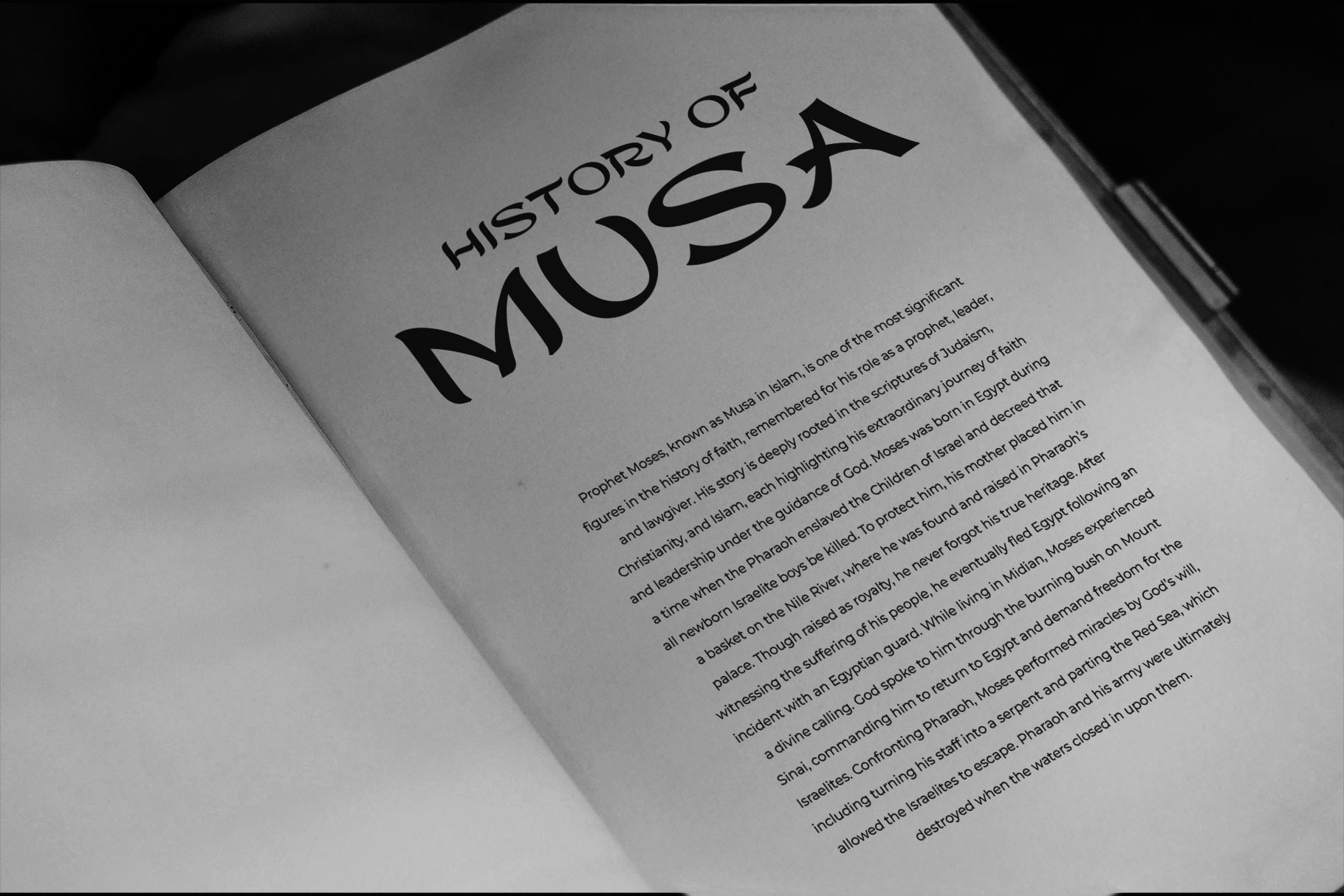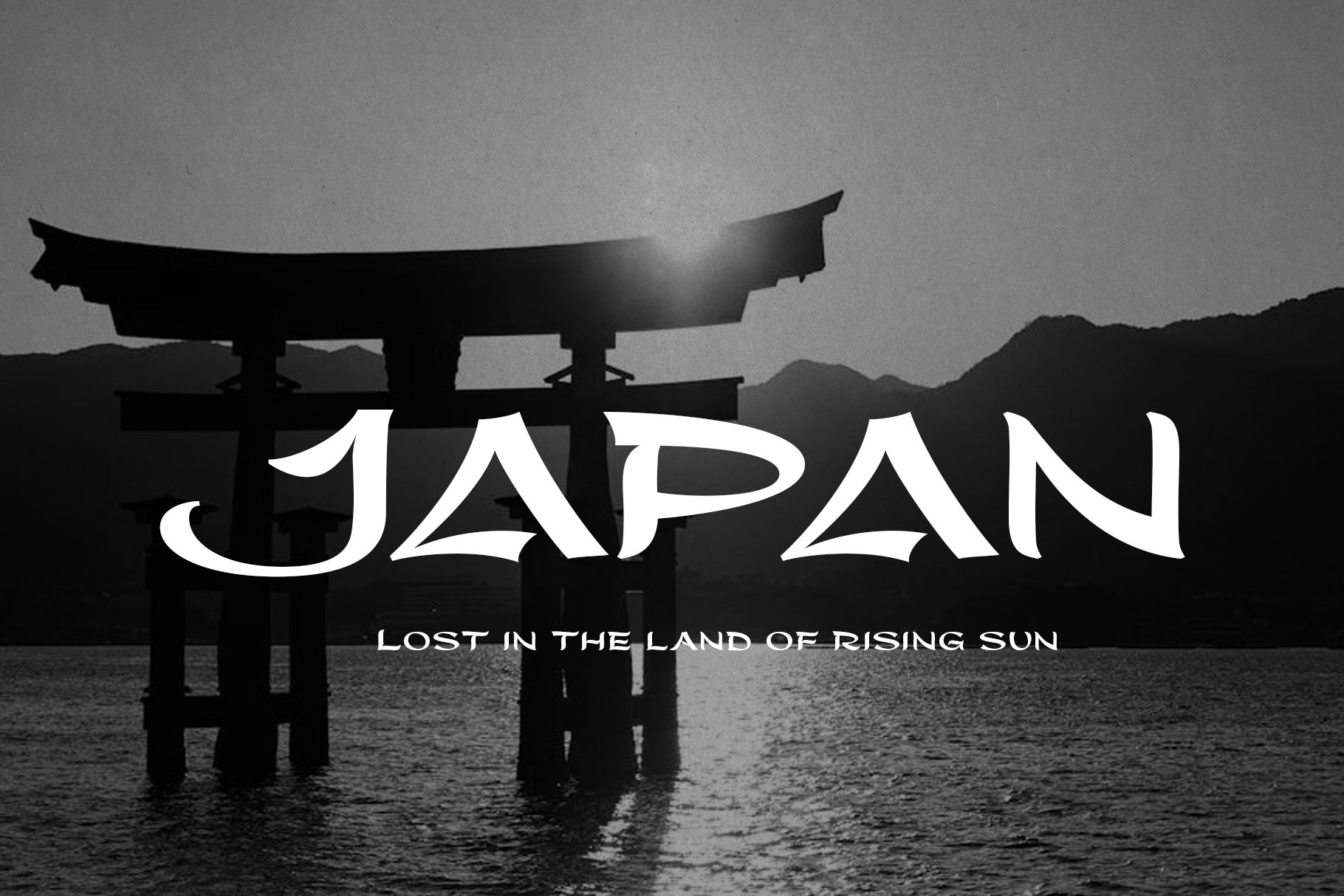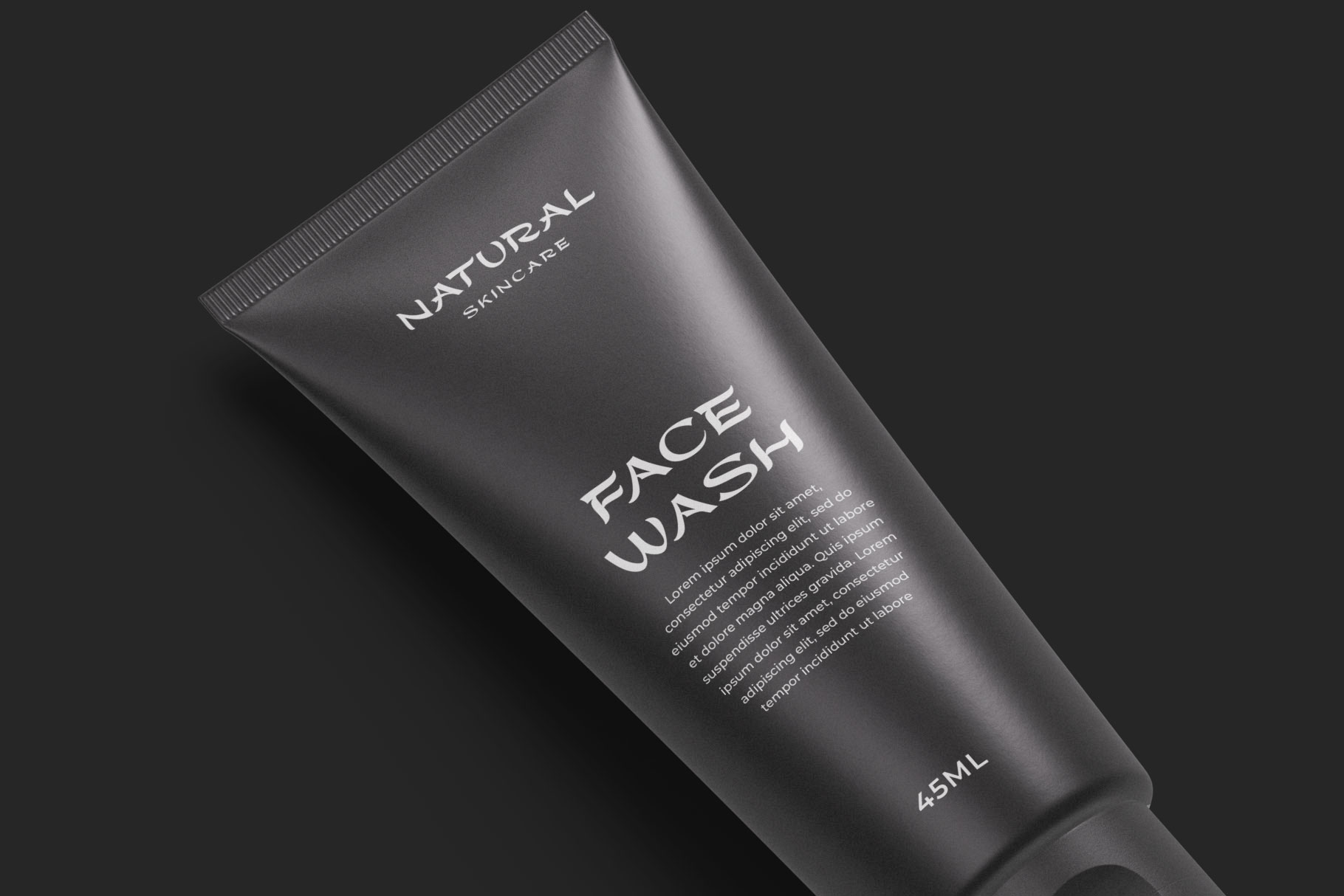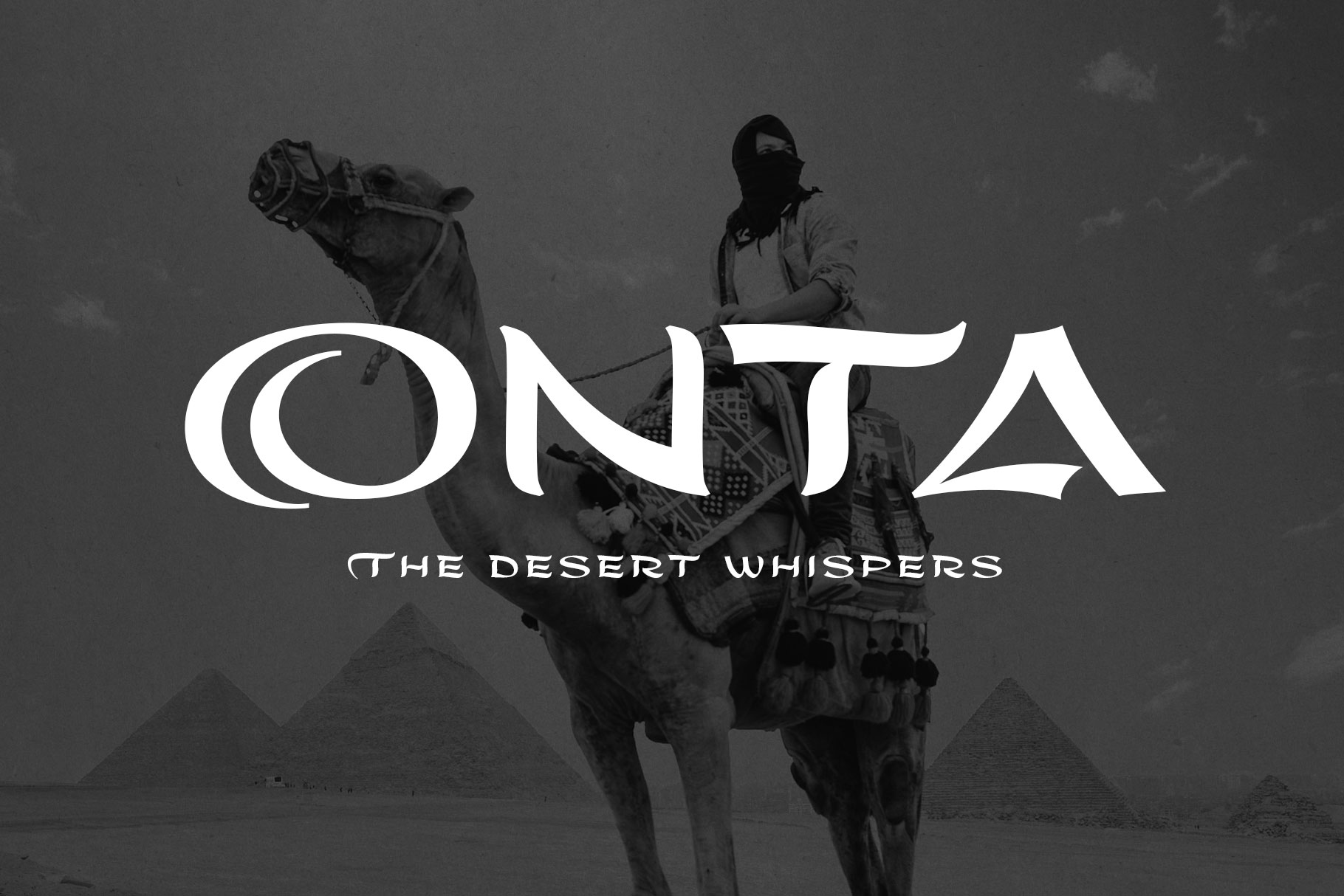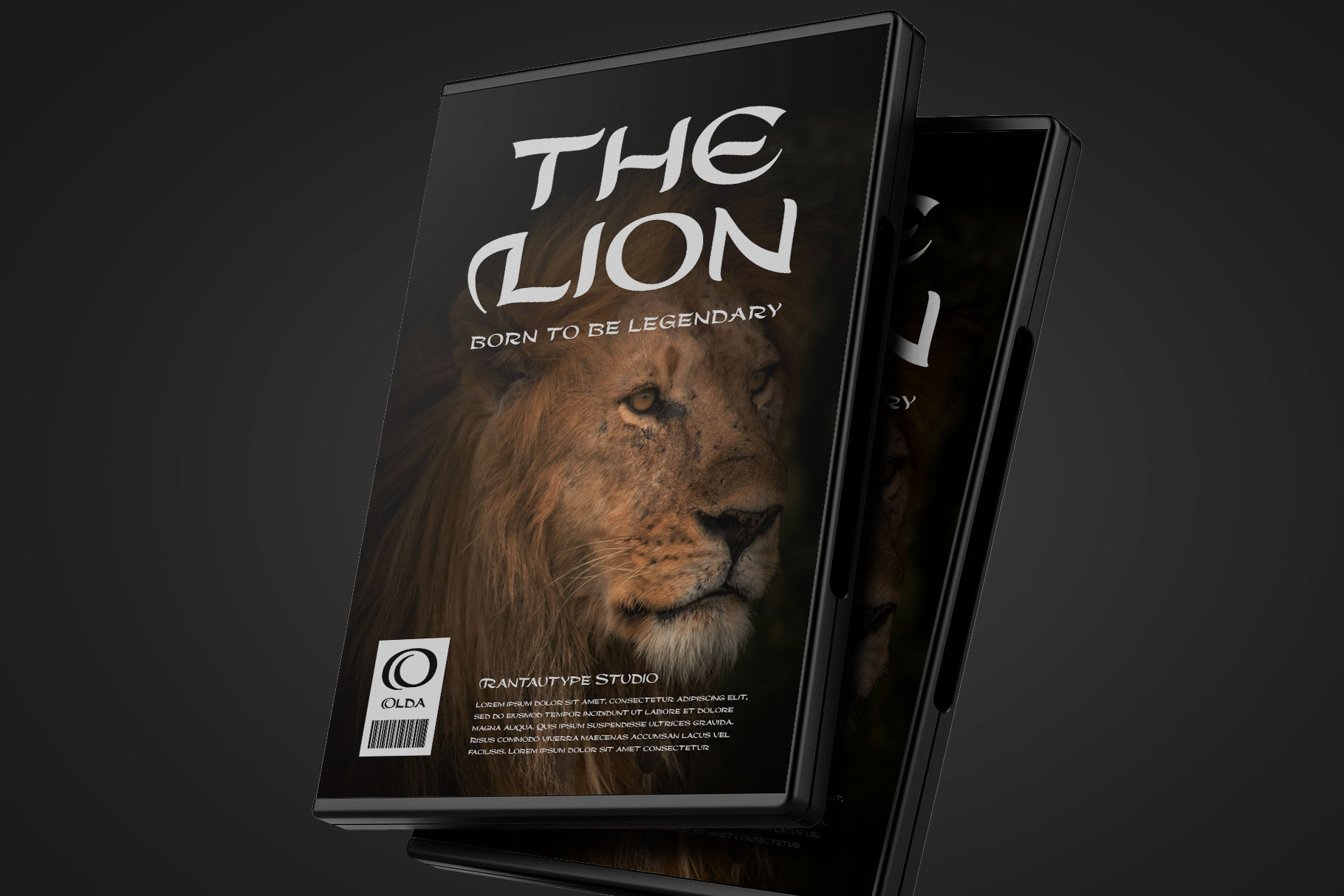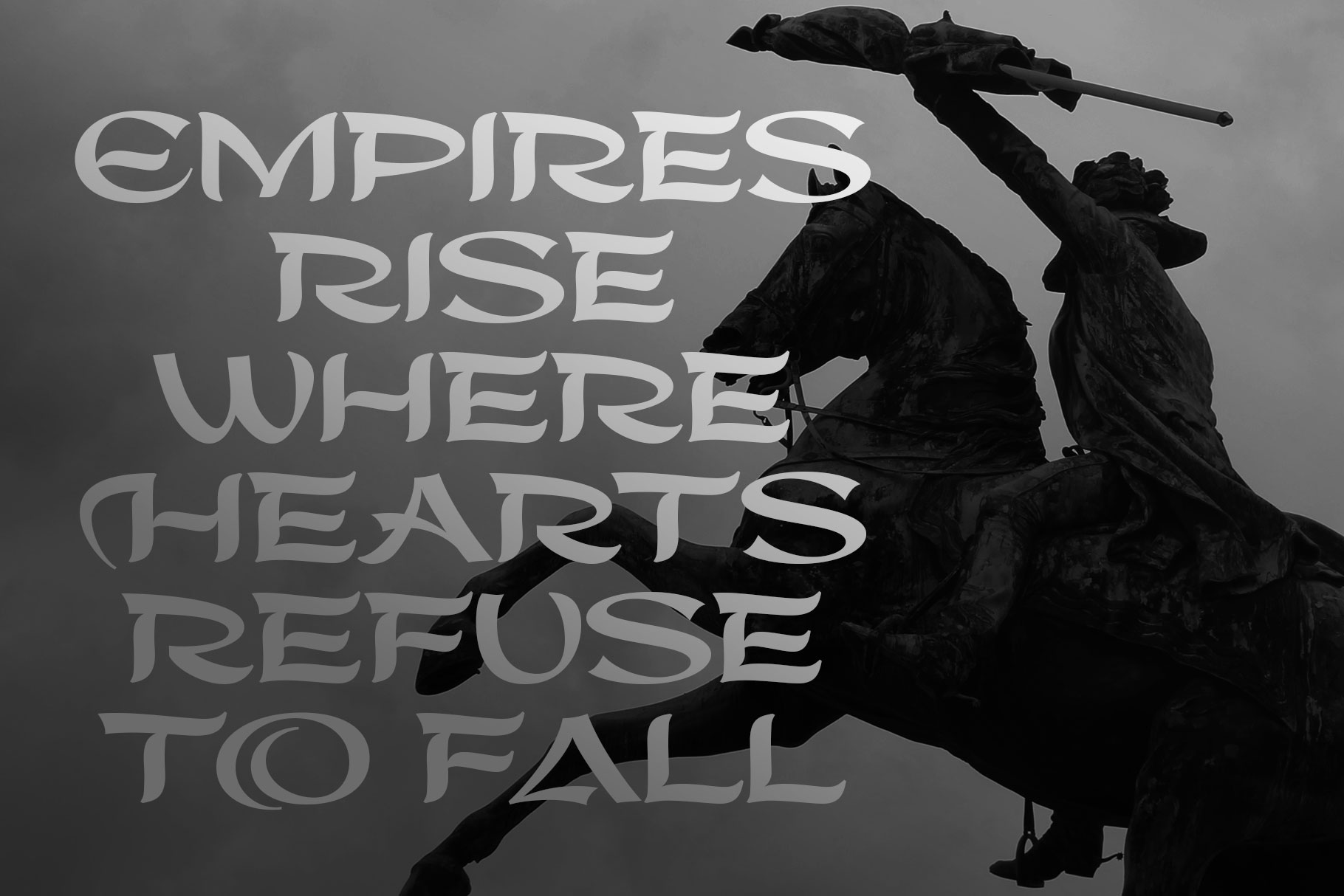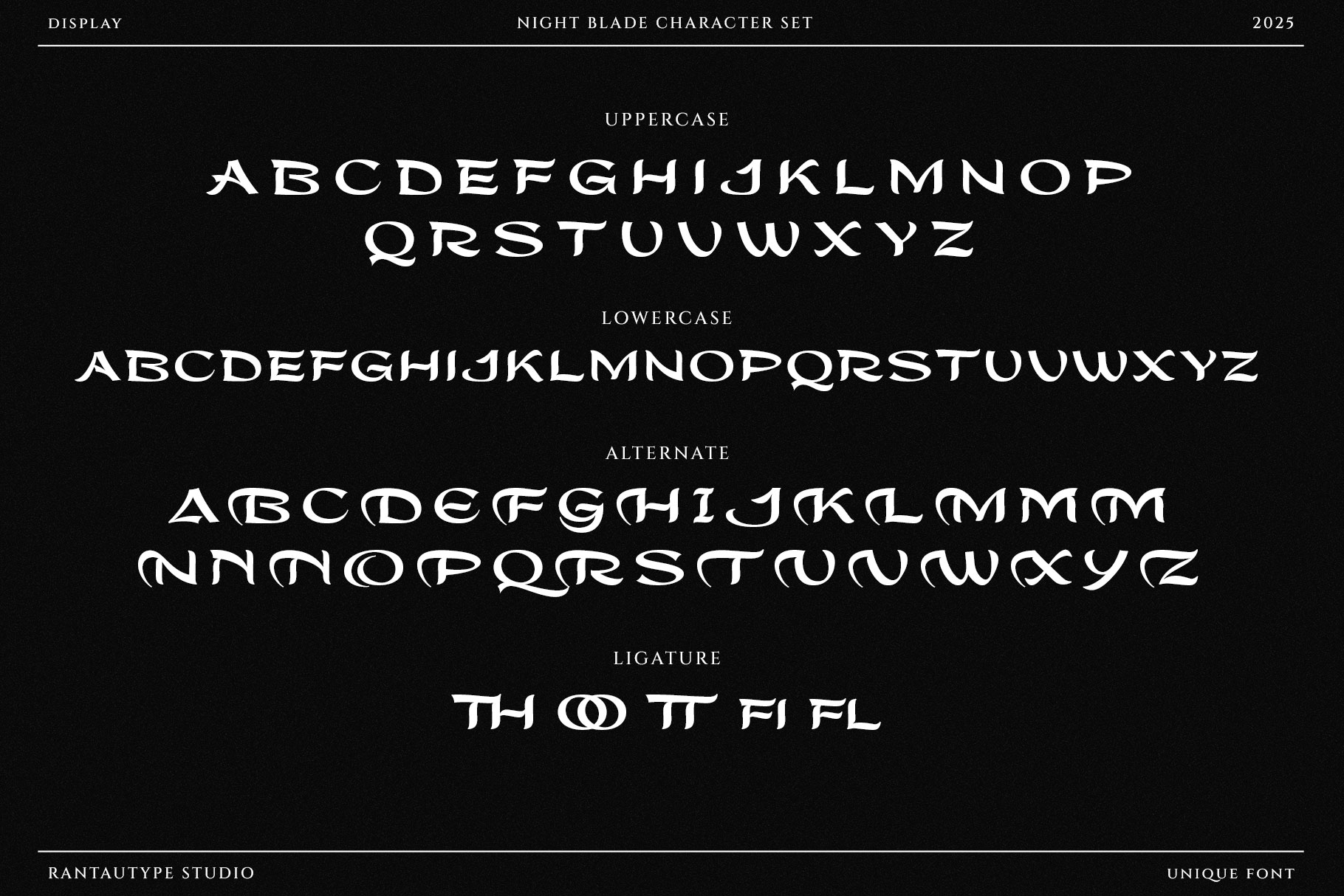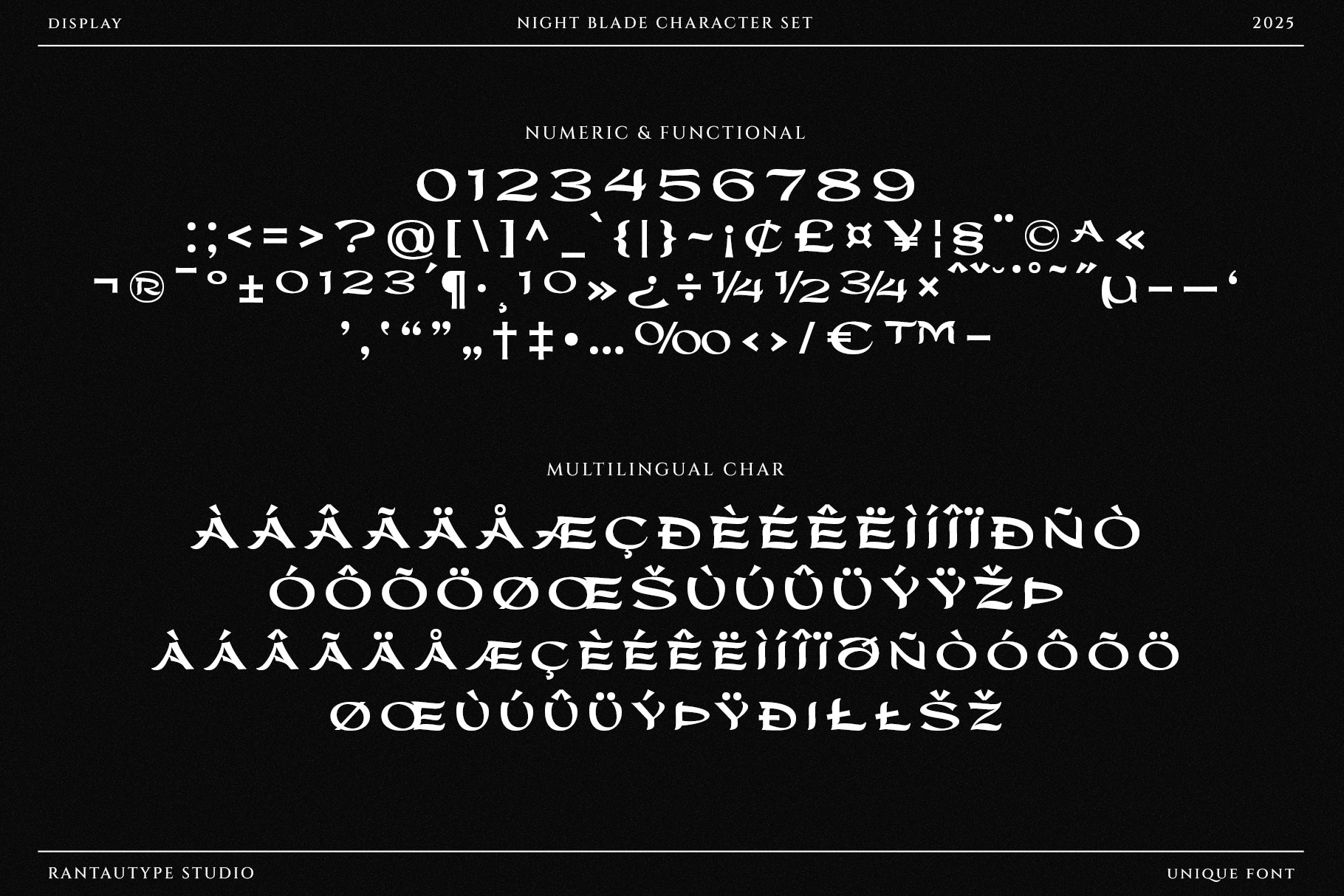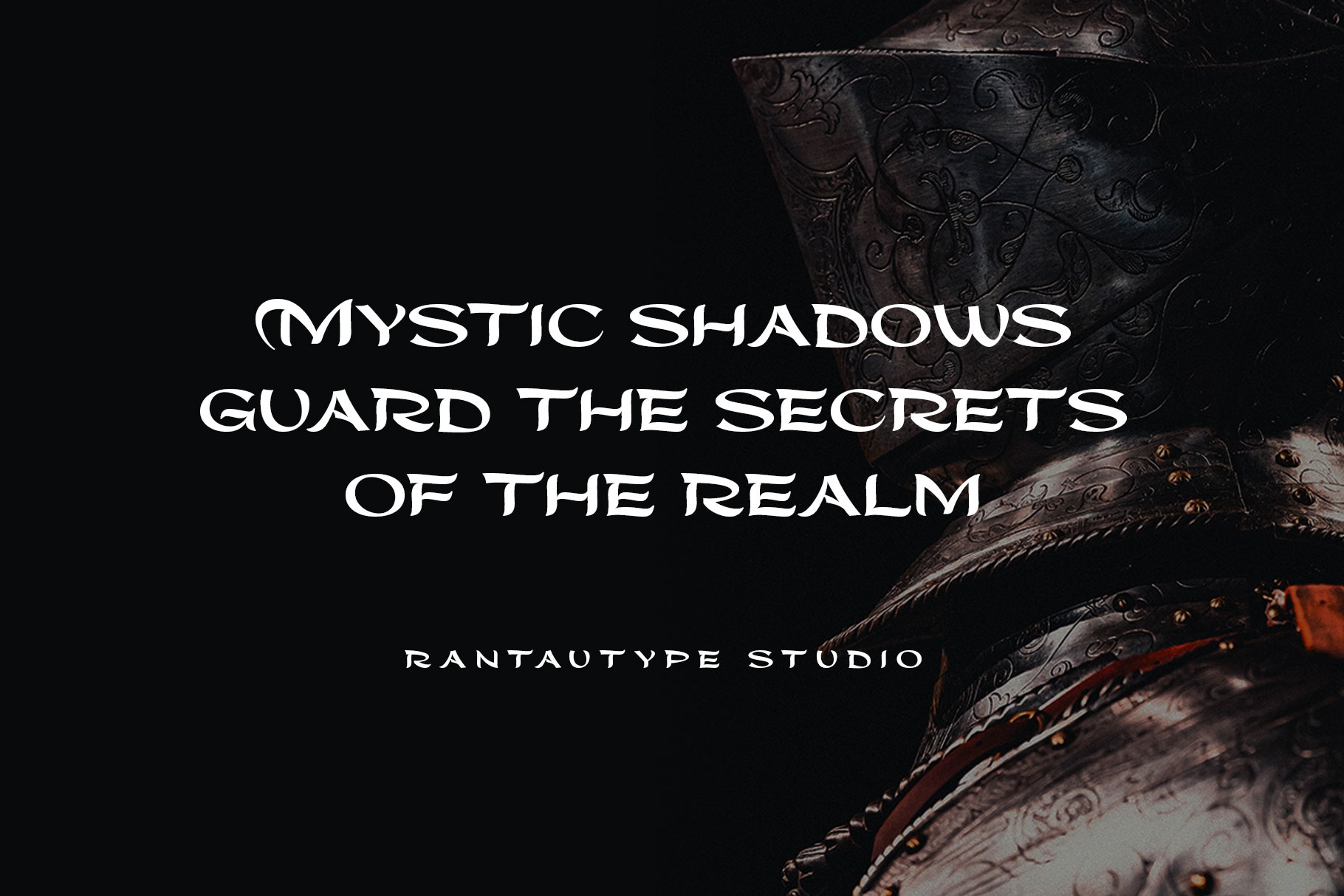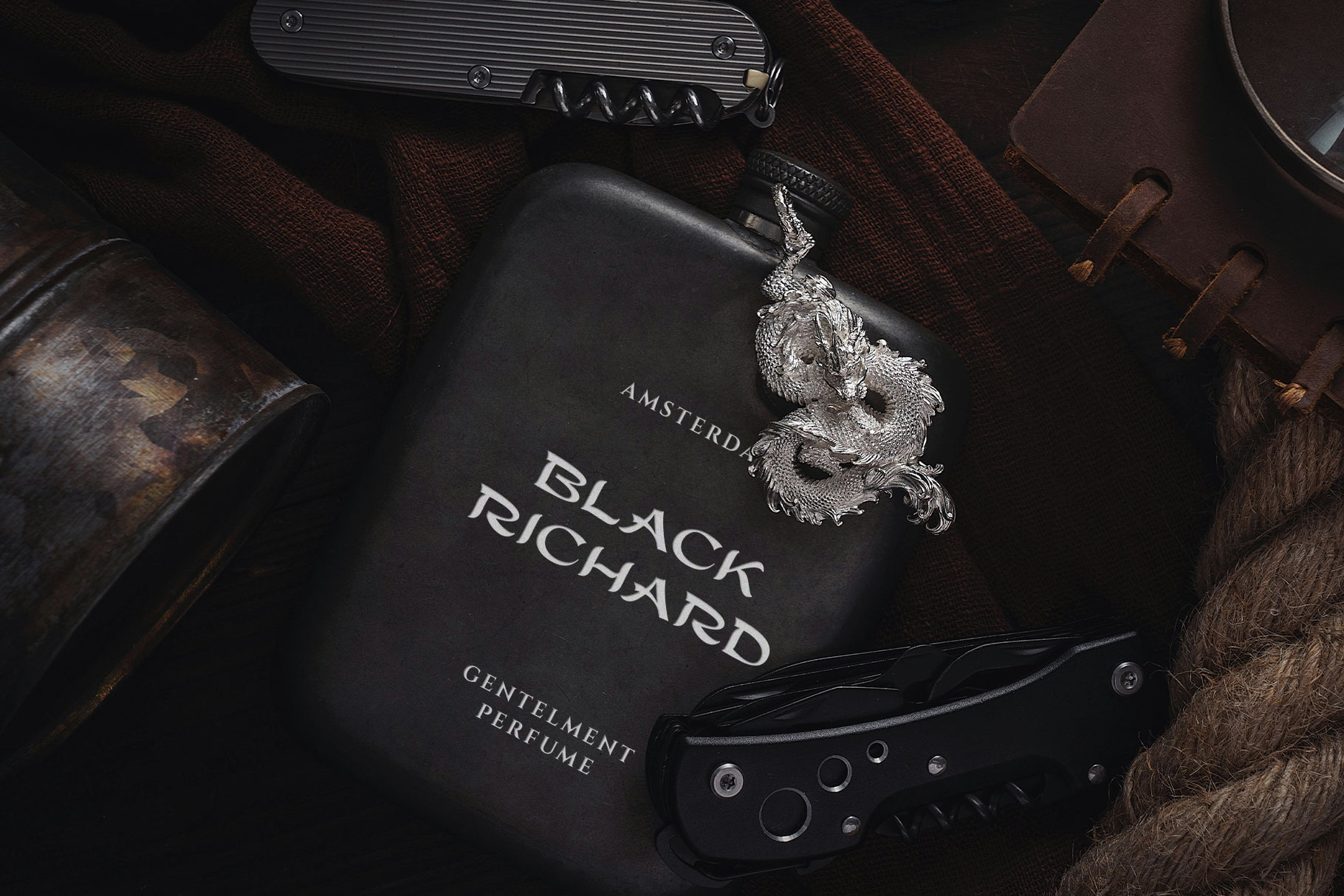
Night Blade Display Font
Night Blade is typefaces inspired by the lettering styles of the Middle Ages, reflecting the artistry, culture, and craftsmanship of that era. These fonts often carry a sense of mystery, tradition, and elegance, making them ideal for designs that aim to capture a historic or gothic atmosphere.
Night Blade is a perfectly choice for any creative endeavor, chic, lifestyle design such as logotype, advertisements, watermark on photography, stationery, branding project, display and magazine, invitation, corporate brand, product design, label, business project and many other project with medieval touch.